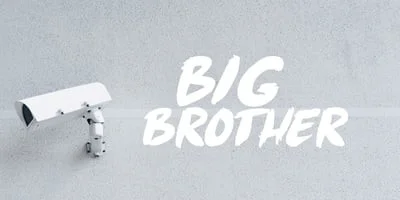
Radical Brush Font
Radical Brush Font is perfect for street art galleries, alternative fashion brands, rebellious music festivals, skateboard graphics, urban youth marketing, graffiti-style designs, counter-culture events, and bold creative expressions.
Radical Brush Font is exciting because it captures the raw energy and rebellious spirit of street art culture through its dynamic brush character design that embodies the spontaneous creativity of urban expression and the fearless authenticity of underground artistic movements. Its edgy styling and revolutionary appeal make it the perfect choice for brands that want to communicate rebellion, authenticity, and the transformative power of radical creative expression.
Radical Brush Font family includes multiple street-inspired variations: Radical Brush Regular, Radical Brush Bold, Radical Brush Heavy, Radical Brush Rough, Radical Brush Spray, and Radical Brush Wild, along with urban decorative elements and street art symbols, providing designers with comprehensive tools for creating authentic street art and radical-themed brand experiences.
When exploring street art typography solutions, Radical Brush Font stands out as the premier choice for designers working on urban and alternative projects that require genuine street sophistication and rebellious appeal. This bold typeface embodies the essence of street art rebellion while offering the versatility needed for modern alternative marketing and underground culture communications. The font's radical character and street resonance create immediate connections with audiences who appreciate authentic urban expression and counter-culture movements.
Street art professionals consistently rely on Radical Brush Font for projects requiring authentic urban sophistication and powerful rebellious appeal. Its expertly crafted letterforms feature brush-inspired influences that work exceptionally well in both large-scale urban venue displays and intimate alternative product packaging applications. The font's ability to convey rebellion and street authenticity while maintaining strong brand recognition makes it invaluable for comprehensive identity systems in the alternative fashion, underground music, and street culture sectors.
Whether you're developing street art identities, creating alternative culture marketing materials, or designing rebellious event promotions, Radical Brush Font delivers the authentic urban character and radical appeal that resonates with audiences who embrace street culture and alternative expression. Its rebellious significance and edgy design ensure your projects capture the fearless energy of radical brush strokes while maintaining contemporary professional standards that attract modern street culture enthusiasts and alternative lifestyle advocates.